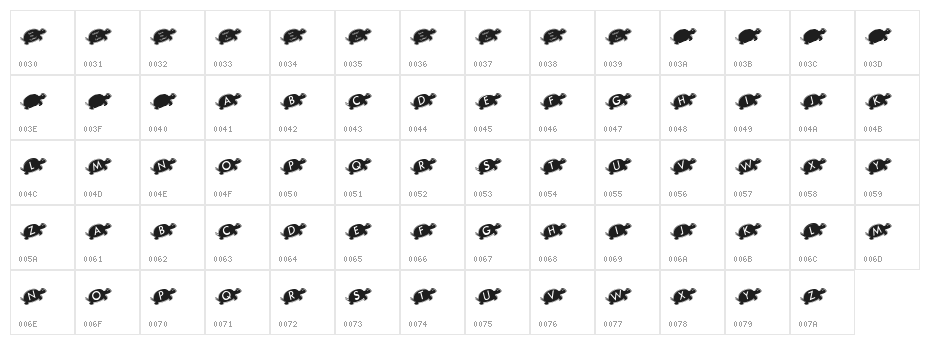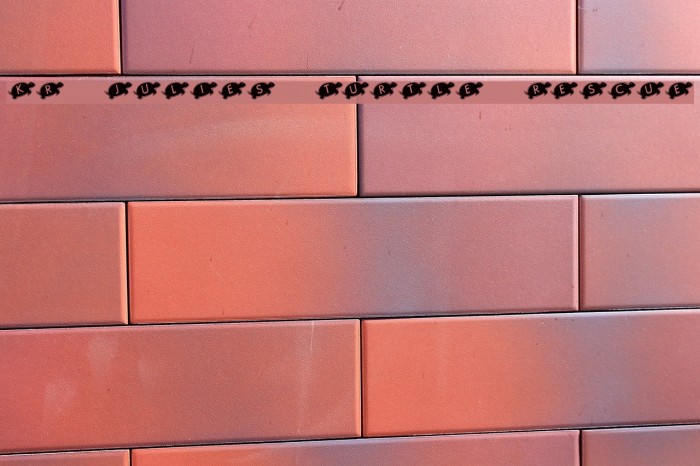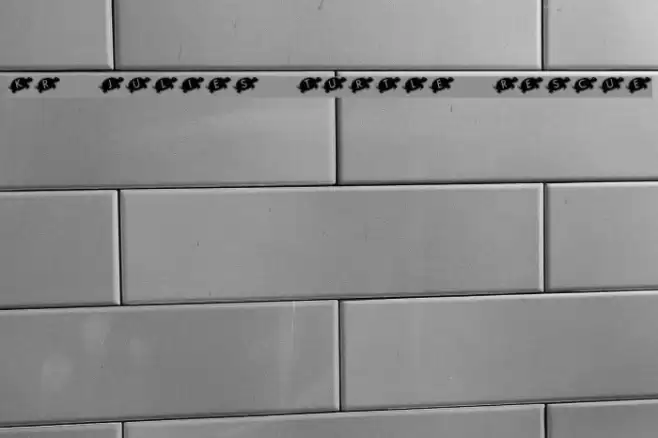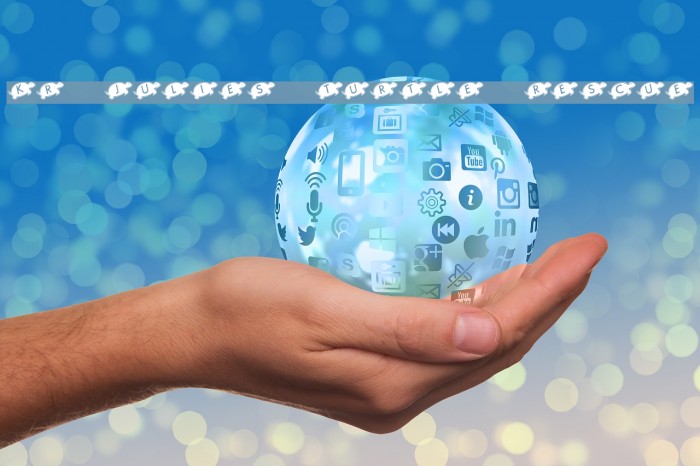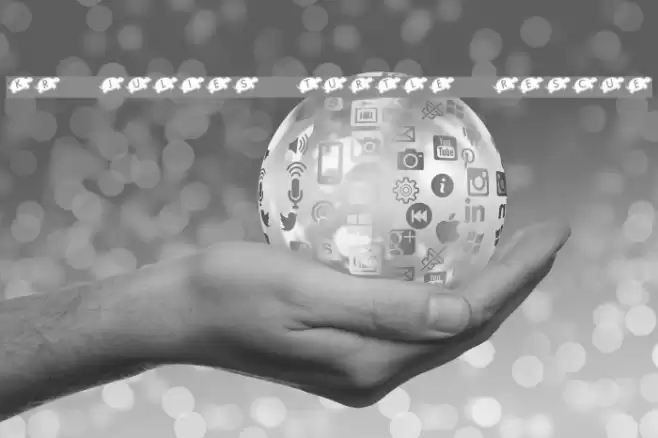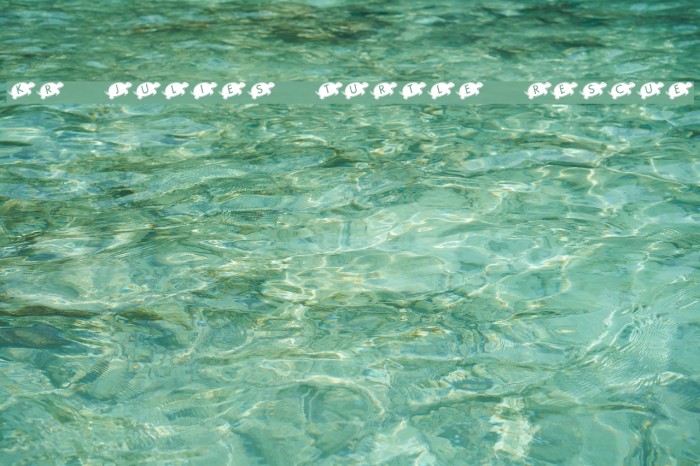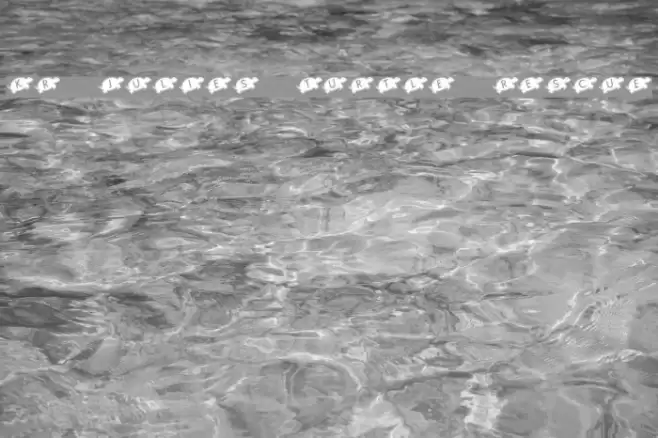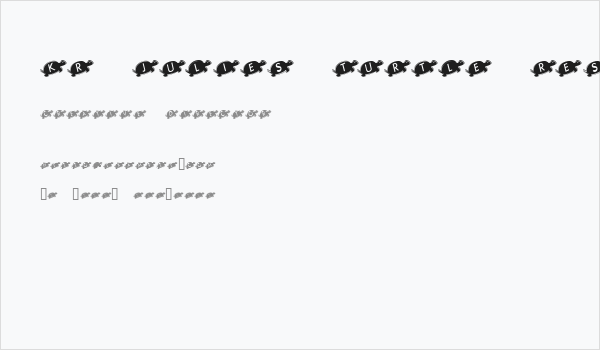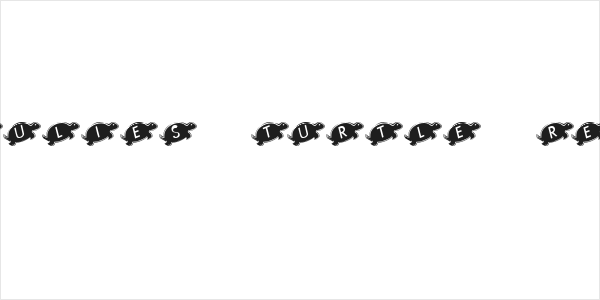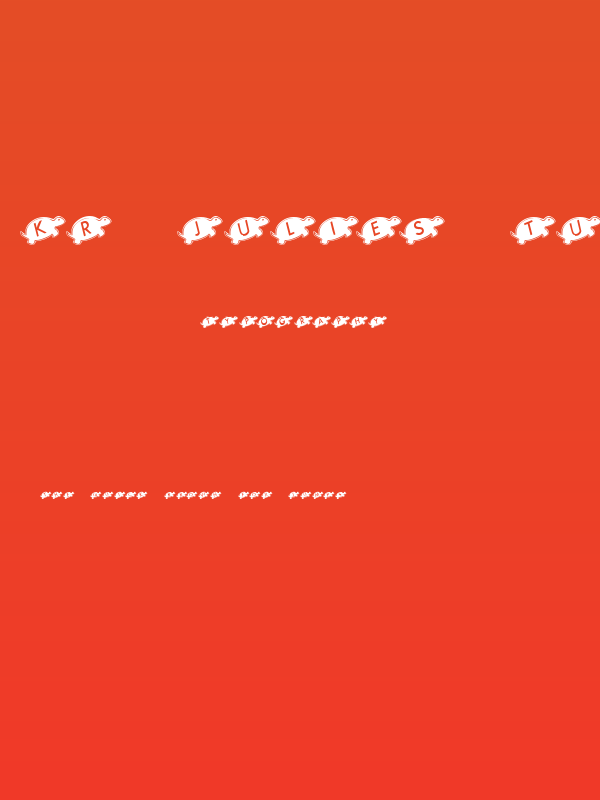
KR Julies Turtle Rescue Font
KR Julies Turtle Rescue Description
This playful and whimsical font features each character enclosed within a turtle silhouette, creating a unique and engaging visual experience. The letters are bold and clear, making them easily readable despite the decorative turtle design. The font combines a sense of fun with a touch of nature, making it ideal for projects that aim to capture attention with a lighthearted and creative approach. The consistent use of turtle shapes provides a cohesive look across all characters, while the bold lettering ensures visibility and impact.
| Proposed Projects | Ideal for children's books, educational materials, environmental campaigns, and playful branding. |